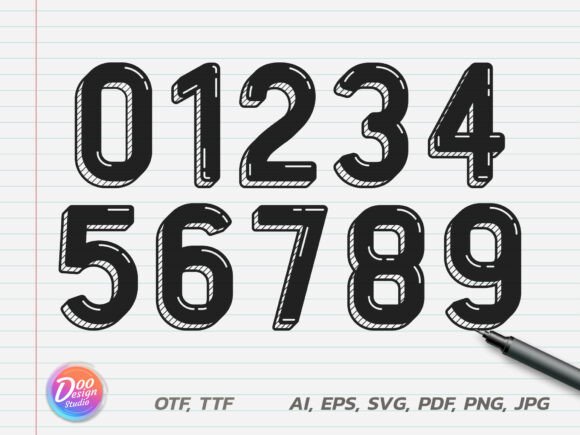
Ink Font: Add a Playful Touch to Your Designs with this Unique Display Font
Ink is a bold and playful display font that can add a unique and dynamic feel to your designs. With its hand-drawn, sketch-like effect, this font is perfect for creating eye-catching headlines, posters, and DIY-style branding. In this article, we’ll explore the features and benefits of Ink Font and how you can use it to take your designs to the next level.
What is Ink Font?
Ink Font is a display font that features thick, uppercase characters outlined with fun hatching and shading. This gives it a creative, marker-style aesthetic that’s ideal for posters, school projects, comics, and other designs that require a bold and playful touch. The font’s hand-drawn, sketch-like effect adds a unique and dynamic feel to your designs, making it perfect for designers who want to add a personal touch to their work.
Key Features of Ink Font
Ink Font has several key features that make it stand out from other display fonts. Some of its notable features include:
- Hand-drawn, sketch-like effect: Ink Font has a unique, hand-drawn look that gives it a personal and creative feel.
- Thick, uppercase characters: The font features thick, uppercase characters that are perfect for creating bold and eye-catching headlines.
- Fun hatching and shading: The font’s hatching and shading effects add a playful touch to your designs and make them more visually appealing.
- Marker-style aesthetic: Ink Font has a marker-style aesthetic that’s perfect for creating DIY-style branding, posters, and school projects.
Benefits of Using Ink Font
Ink Font offers several benefits to designers, including:
- Unique and dynamic feel: Ink Font’s hand-drawn, sketch-like effect gives your designs a unique and dynamic feel that sets them apart from other designs.
- Easily readable: The font’s thick, uppercase characters make it easily readable, even at large sizes.
- Versatile: Ink Font is versatile and can be used for a wide range of design projects, from posters and school projects to comics and DIY-style branding.
- Adds a personal touch: The font’s hand-drawn look adds a personal touch to your designs, making them more relatable and engaging.
How to Use Ink Font in Your Designs
Ink Font in Education
Ink Font is a great font for educational projects, such as classroom bulletin boards, school posters, and homework assignments. The font’s bold and playful aesthetic makes it perfect for grabbing the attention of students and adding a fun touch to educational materials.
Some ideas for using Ink Font in education include:
- Classroom bulletin boards: Use Ink Font to create eye-catching headlines and titles for classroom bulletin boards.
- School posters: Use Ink Font to create bold and colorful posters for school events and activities.
- Homework assignments: Use Ink Font to add a fun and playful touch to homework assignments and make them more engaging for students.
Ink Font in Graphic Design
Ink Font is also a great font for graphic designers who want to add a bold and playful touch to their designs. The font’s marker-style aesthetic makes it perfect for creating DIY-style branding, posters, and other designs that require a unique and dynamic feel.
Some ideas for using Ink Font in graphic design include:
- DIY-style branding: Use Ink Font to create bold and playful branding for DIY-style businesses and products.
- Posters and flyers: Use Ink Font to create eye-catching posters and flyers for events and promotions.
- Comics and illustrations: Use Ink Font to add a fun and playful touch to comics and illustrations.
Tips for Using Ink Font
Here are some tips for using Ink Font effectively in your designs:
- Use it sparingly: Ink Font is a bold and playful font, so use it sparingly to avoid overwhelming your design.
- Pair it with other fonts: Pair Ink Font with other fonts to create a unique and dynamic contrast.
- Experiment with colors: Experiment with different colors to find the one that works best with Ink Font.
- Use it for headlines: Use Ink Font for headlines and titles to add a bold and playful touch to your design.
Ink Font is a bold and playful display font that can add a unique and dynamic feel to your designs. With its hand-drawn, sketch-like effect and marker-style aesthetic, this font is perfect for creating eye-catching headlines, posters, and DIY-style branding. Whether you’re a designer, educator, or DIY enthusiast, Ink Font is a great choice for adding a fun and playful touch to your designs.